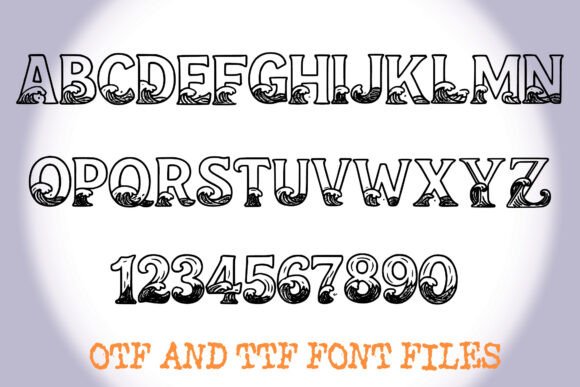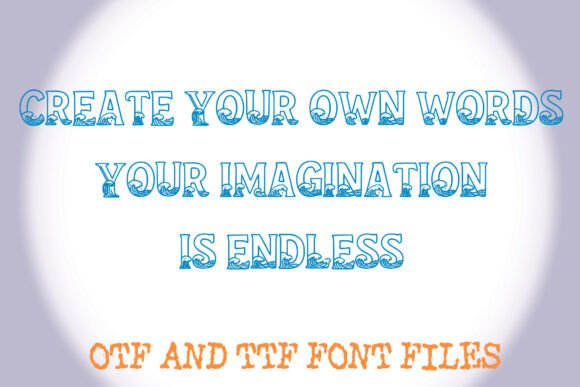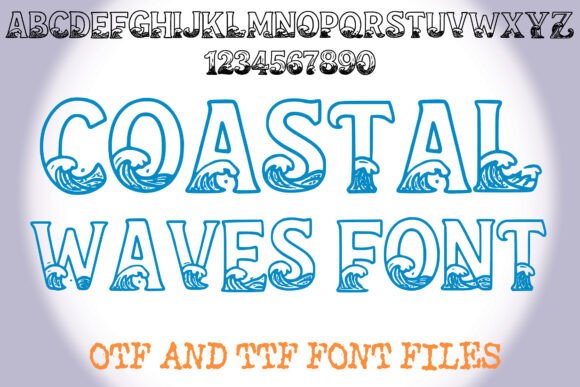
Ride the Tide of Creativity with Coastal Waves Font
Are you a designer, crafty enthusiast, or a business owner looking for a font that captures the essence of the ocean? Look no further than Coastal Waves, a breezy font that embodies the motion of the sea. This stylish font is perfect for surf shops, beach brands, and coastal event posters, allowing you to ride the tide of creativity and make a splash with your designs.
Inspired by the Ocean’s Movement
Coastal Waves font is carefully crafted to reflect the undulating movement of the ocean’s waves. The font features wave-like elements that add a touch of playfulness and freedom to your designs. The flowing lines and curves evoke a sense of movement, making it perfect for designs that require a sense of energy and dynamism.
Perfect for Coastal-Themed Designs
Coastal Waves font is ideal for designs that require a coastal or beachy vibe. Whether you’re creating a logo for a surf shop, a brochure for a beach resort, or an invitation for a coastal event, this font is sure to make your design stand out. The font’s breezy and carefree feel will transport your audience to the coast, evoking feelings of relaxation and fun.
Key Features of Coastal Waves Font
- Wave-inspired elements: The font features stylish wave elements that add a touch of whimsy to your designs.
- Breezy and carefree feel: The font’s flowing lines and curves evoke a sense of freedom and movement.
- Perfect for coastal-themed designs: Ideal for surf shops, beach brands, and coastal event posters.
- Easy to read: The font is clear and legible, making it perfect for body text and headings.
- Versatile: Can be used for both digital and print designs.
Tips for Using Coastal Waves Font
To get the most out of Coastal Waves font, here are some tips to keep in mind:
- Use it for headings and titles: The font’s wave-inspired elements make it perfect for headings and titles.
- Pair it with a clean font: Pair Coastal Waves with a clean, sans-serif font for body text to create a nice contrast.
- Experiment with colors: Try using Coastal Waves with a range of colors, from calming blues and whites to bold corals and yellows.
- Add some texture: Add some texture to your design by layering Coastal Waves over a background image or texture.
Where to Use Coastal Waves Font
Coastal Waves font is versatile and can be used in a range of design projects, including:
- Surf shops and beach brands: Perfect for logos, business cards, and marketing materials.
- Coastal event posters: Ideal for promoting beach festivals, surf competitions, and coastal events.
- Beach-themed crafts: Great for crafting projects, such as making signs, banners, and decorations.
- Digital designs: Can be used for social media graphics, website headers, and email newsletters.
Ride the tide of creativity with Coastal Waves font, a breezy and stylish font that’s perfect for surf shops, beach brands, and coastal event posters. With its wave-inspired elements and carefree feel, this font is sure to make a splash with your designs. Whether you’re a designer, crafty enthusiast, or business owner, Coastal Waves font is a great addition to your font collection.